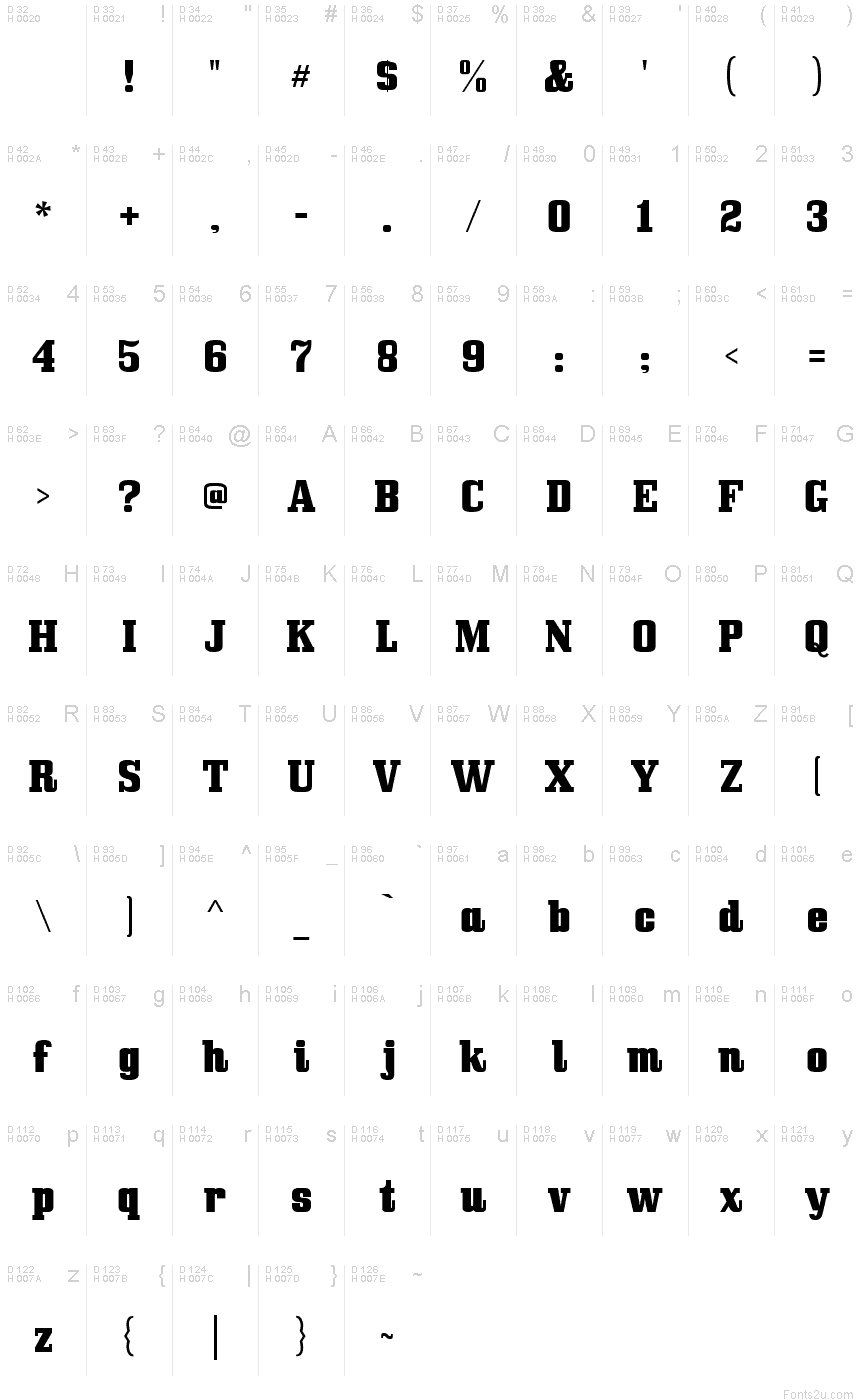
Bullpen
Bullpen font by Ray Larabie is a free retro display font that feels like it was pulled straight off a weathered ballpark sign. Heavy, squared letterforms with blunt slabs and tight, upright rhythm give it a tough, no-nonsense presence, while the smooth curves keep it approachable instead of stiff. It hits that sweet spot between vintage sports nostalgia and bold, modern branding, making headlines look like they were stamped in thick, inky paint.
Using Bullpen, you can lock in sturdy wordmarks for sports logos, team jerseys, posters, beer or soda labels, retro packaging, and bold event signage. This free font shines on big, punchy titles where you want maximum impact in minimal space. Pair Bullpen with a clean geometric sans for body text and keep plenty of breathing room around it so those blocky slabs and tight curves can really flex.